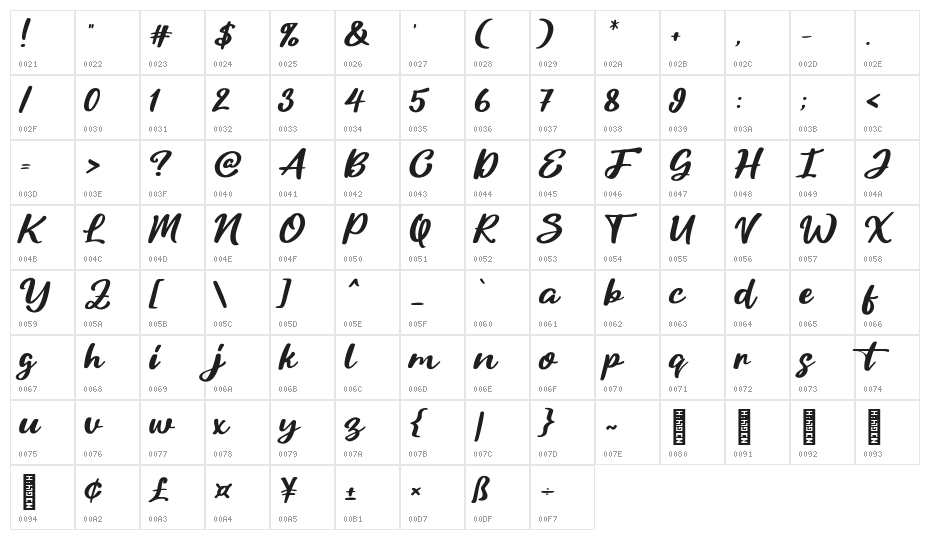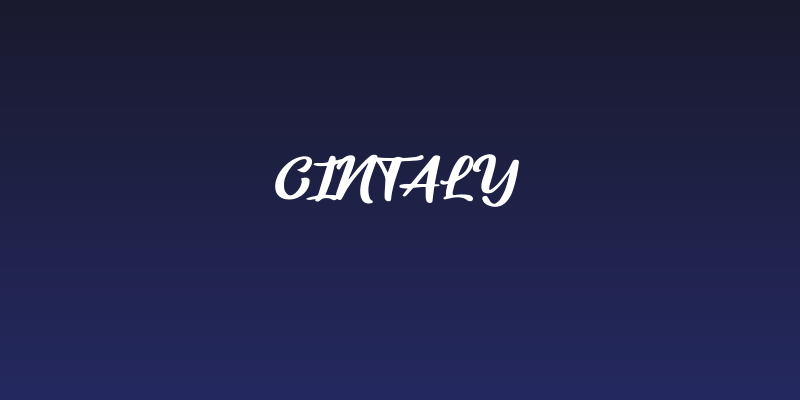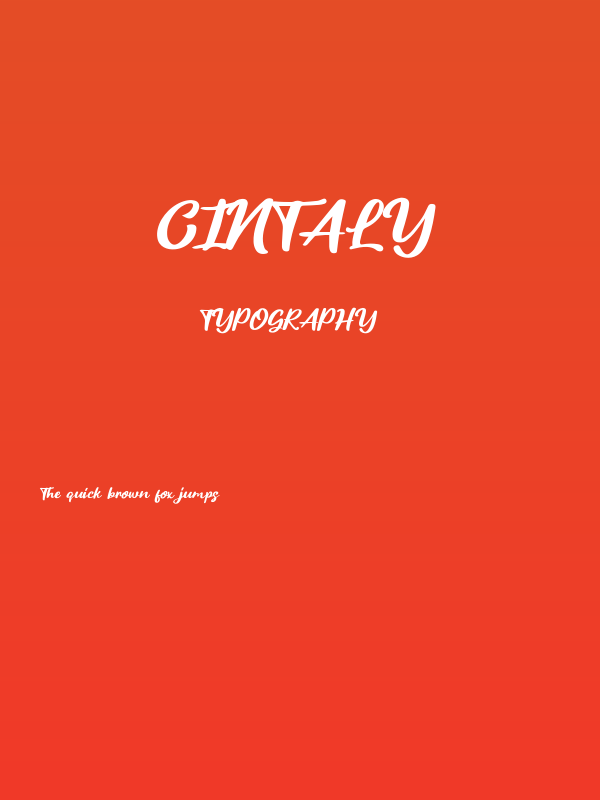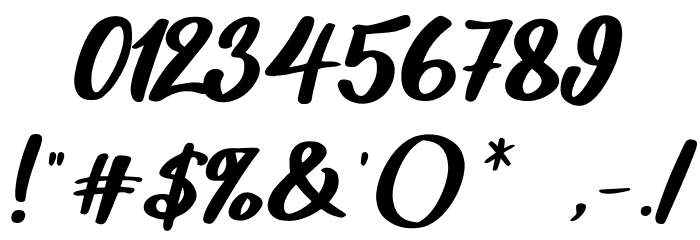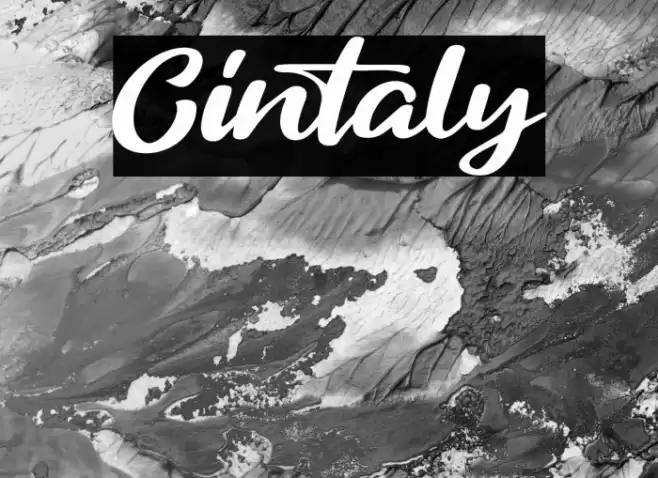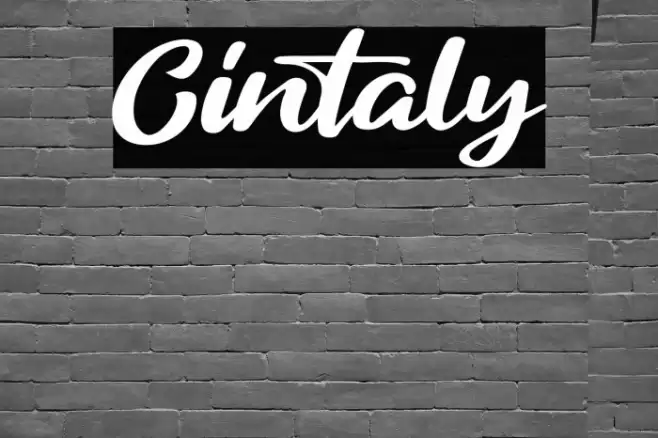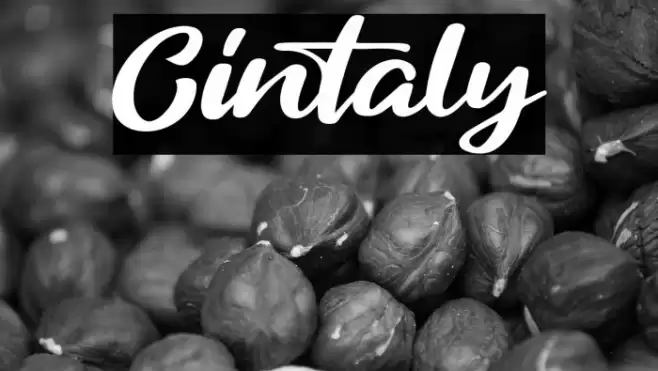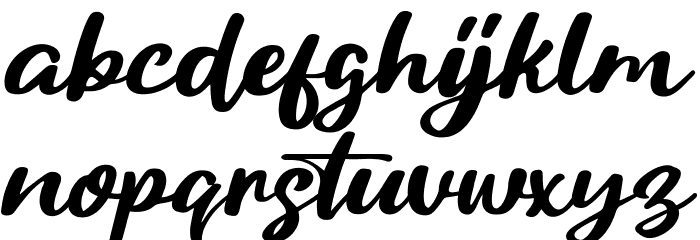
Cintaly Font
Cintaly Description
This font features a bold, cursive style with a flowing, handwritten appearance. The letters are connected, giving it a smooth and elegant look. The uppercase characters are slightly more elaborate, with some letters featuring loops and swirls that add a touch of sophistication. The lowercase letters maintain a consistent flow, enhancing readability while retaining a stylish flair. Numbers and special characters are designed to match the overall aesthetic, ensuring a cohesive look across all text. The font's boldness makes it stand out, while its script nature adds a personal, artistic touch.